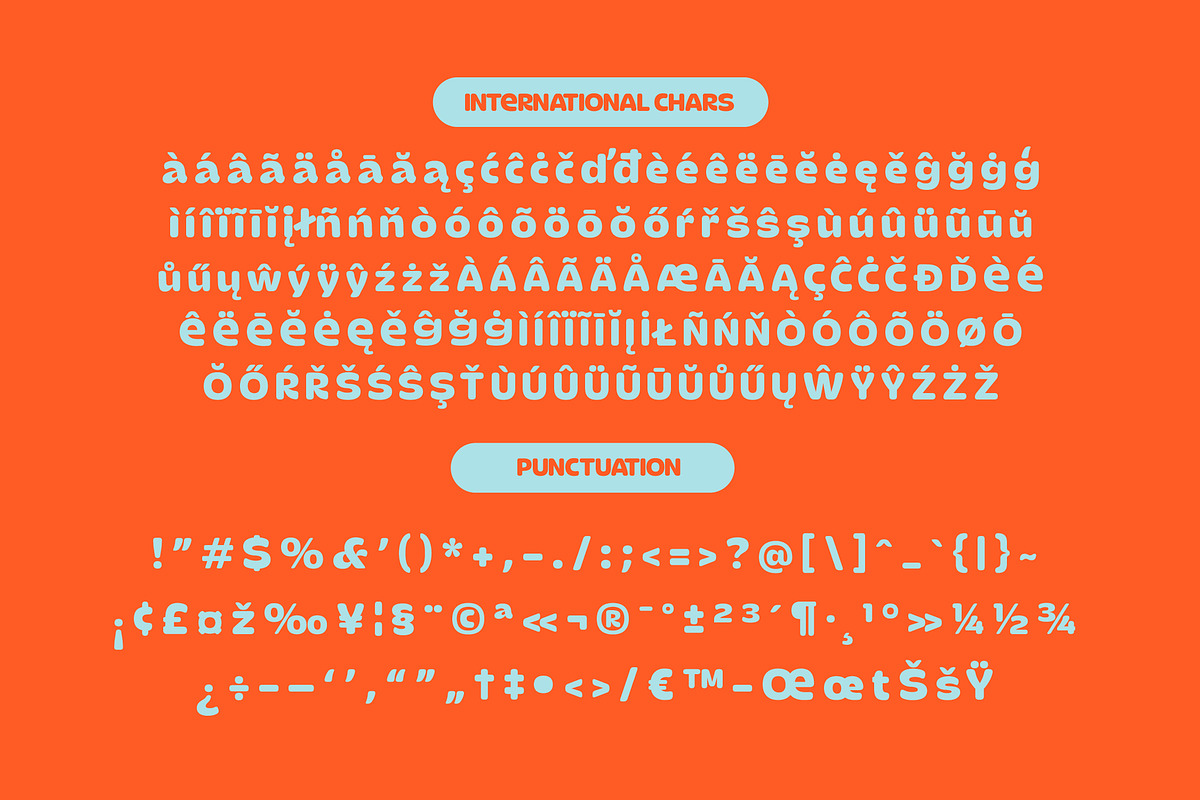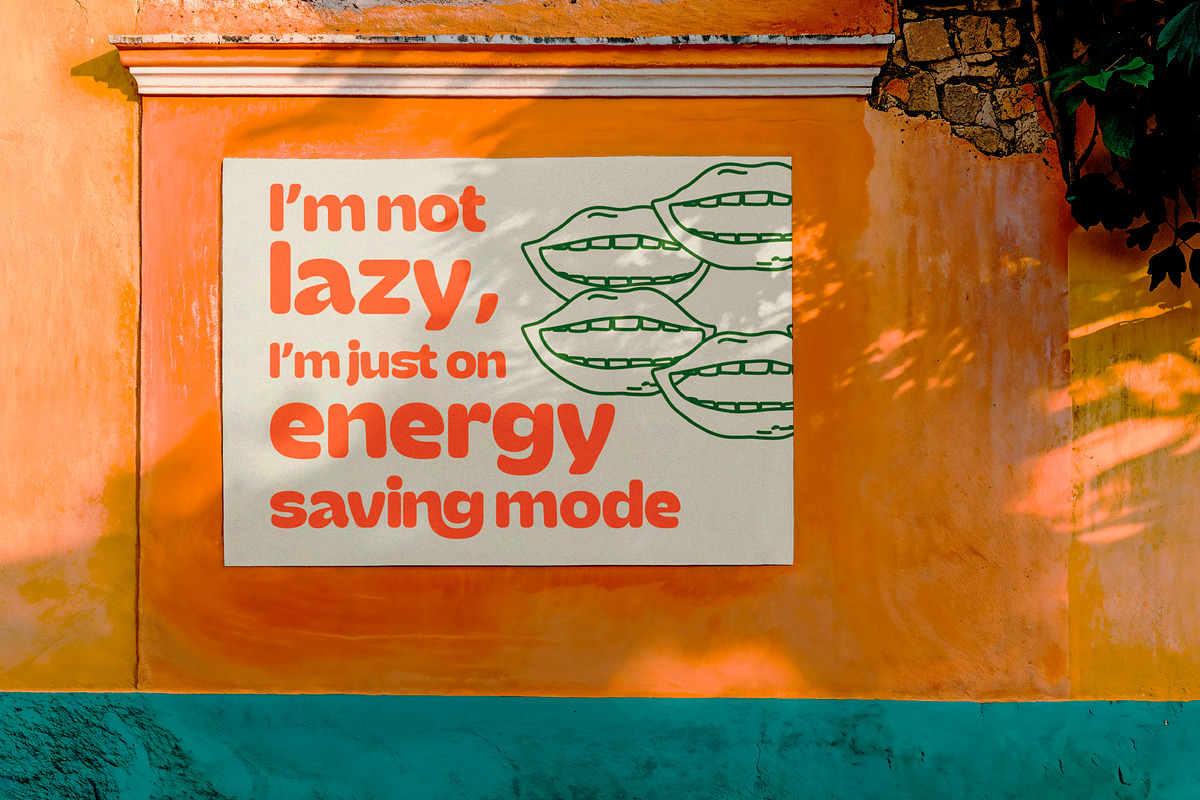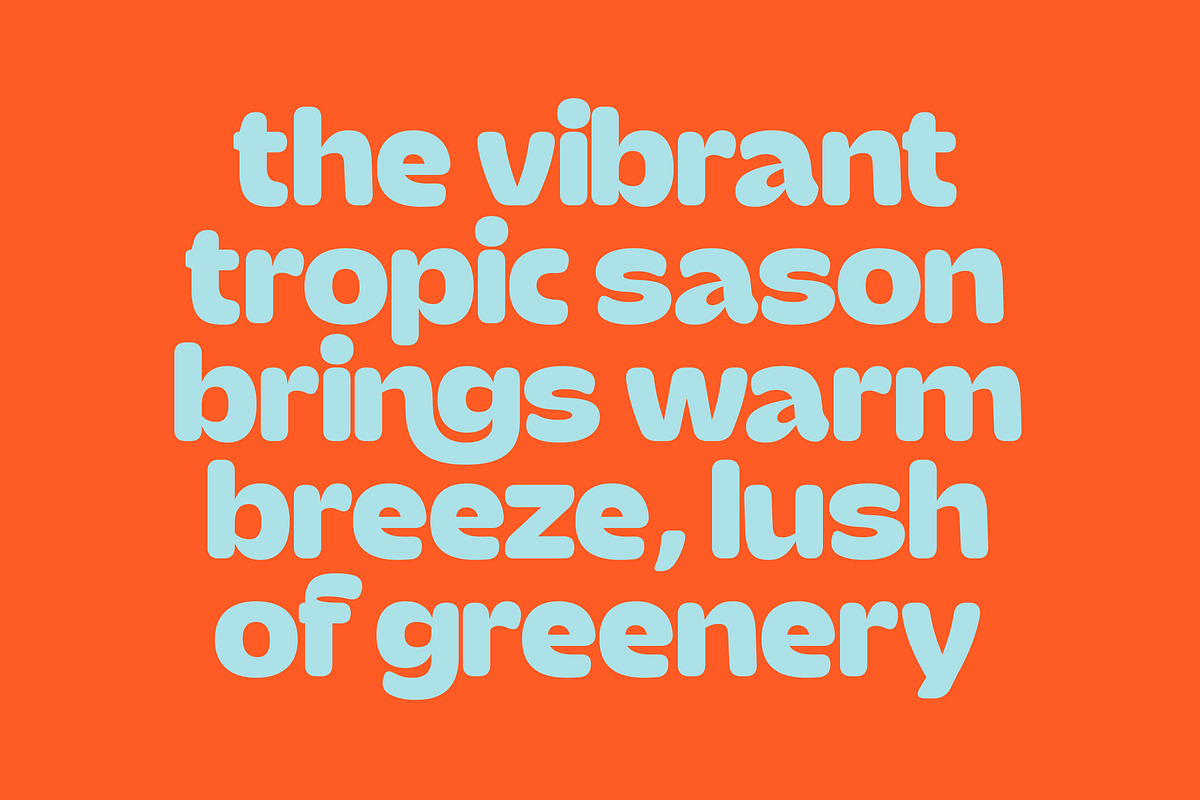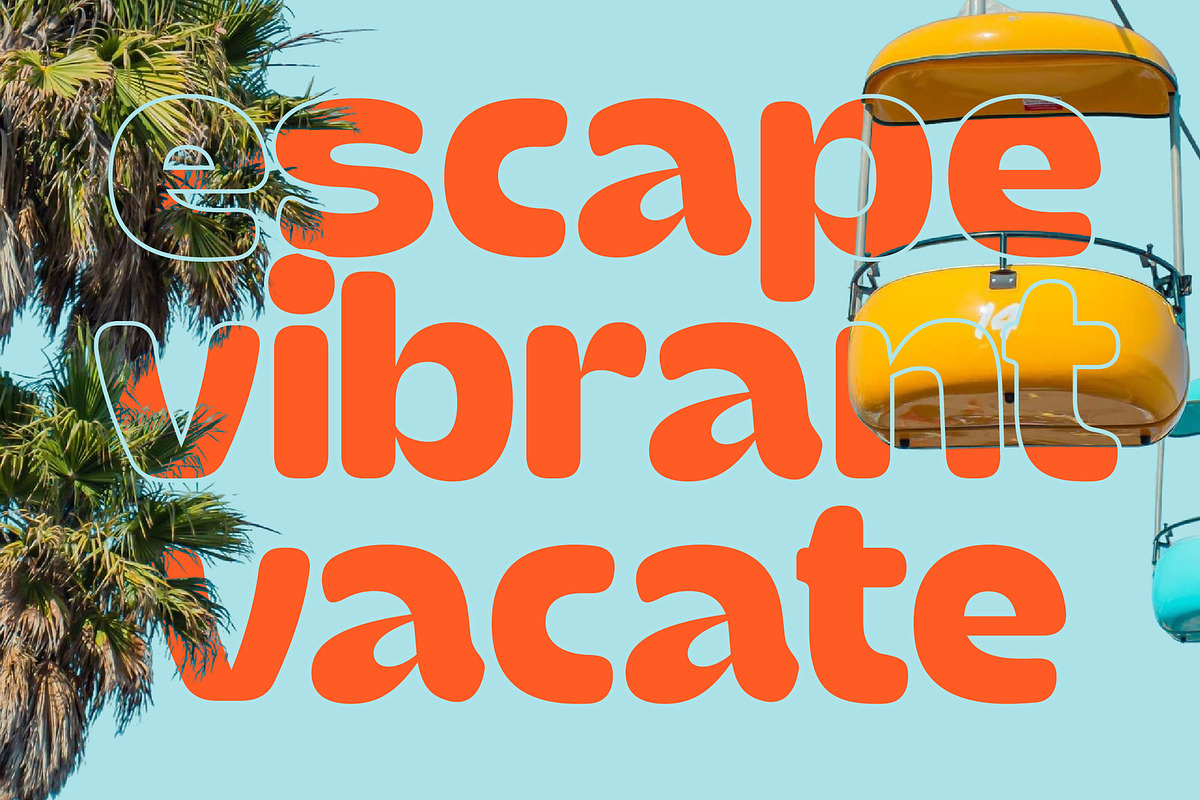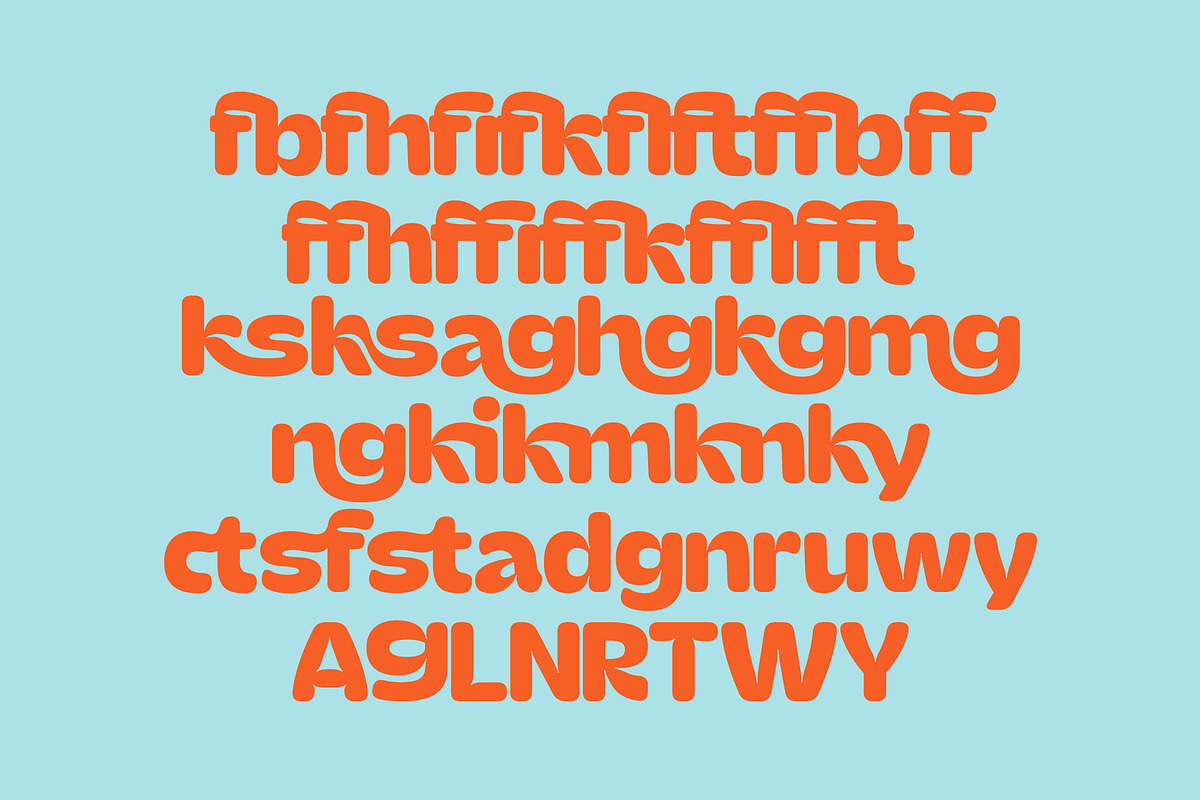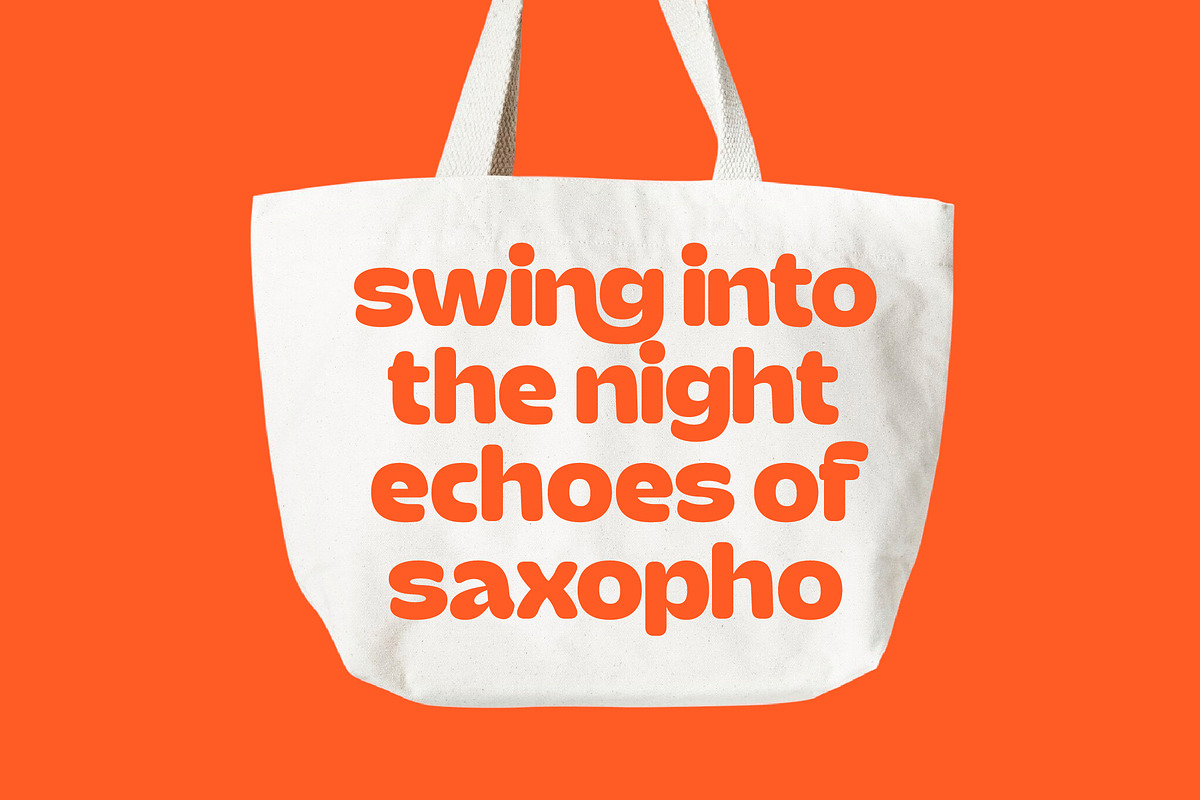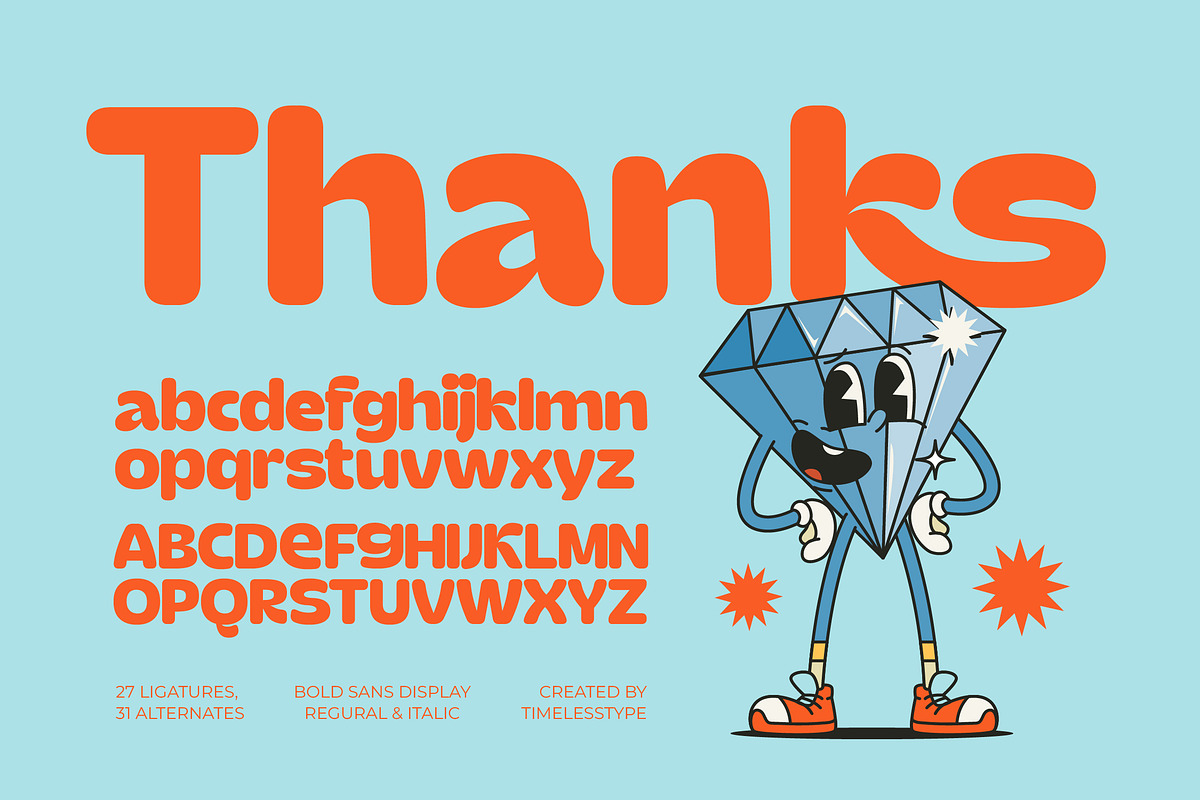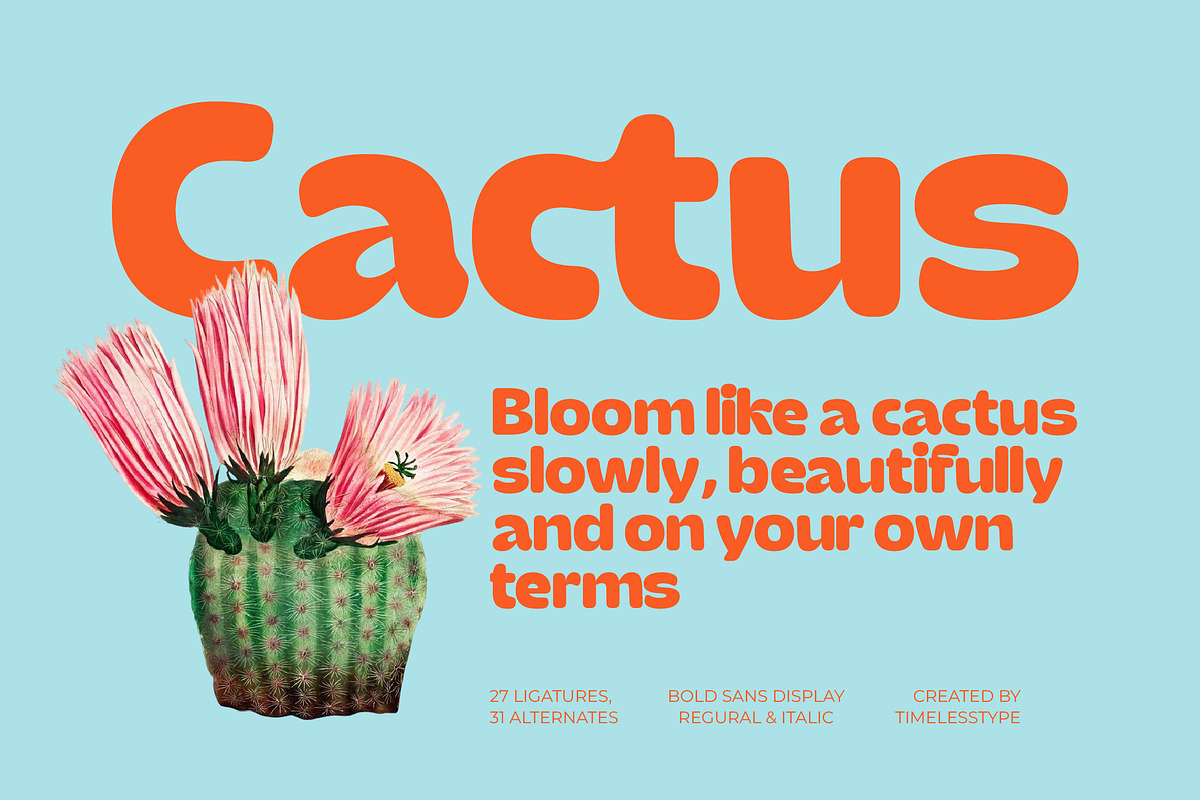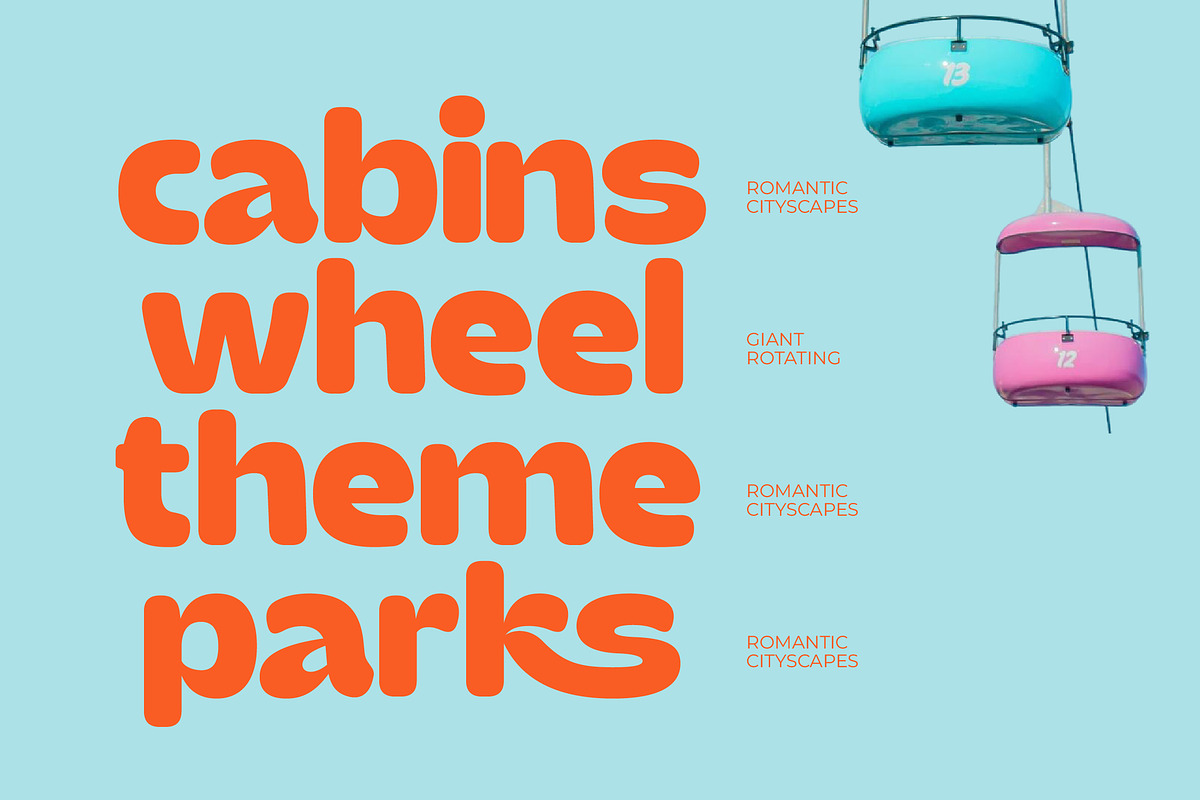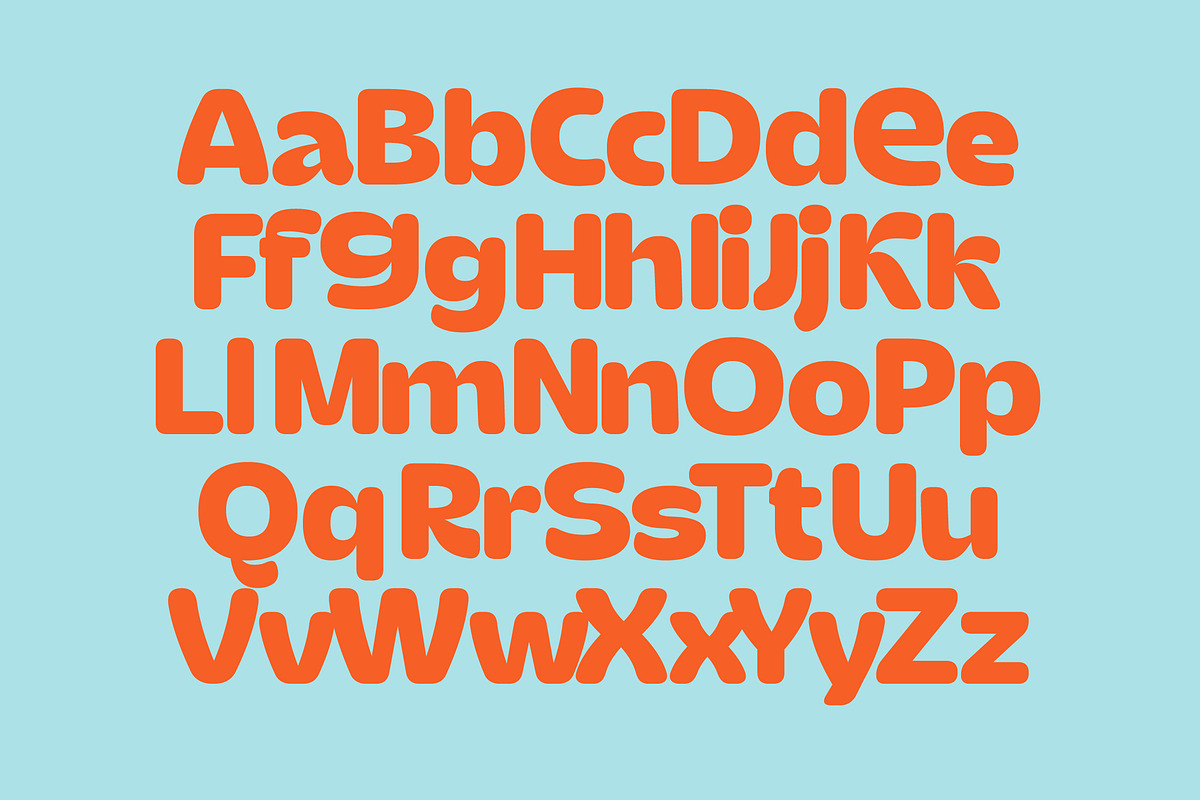
Gemst Retro Bold Display Sans
The Gemst typeface is a vibrant and chunky display font that captures the essence of retro playfulness with a modern twist. It is designed to make your headlines pop and your brand identity stand out with unmistakable energy and thick, pillowy curves.
Inspired by the groovy aesthetics of the 1970s and the bold character designs of vintage cartoons, this typeface brings a nostalgic yet fresh vibe to any project. Its expressive letterforms reflect an era of design where personality and warmth were prioritized in every stroke.
The personality of Gemst is defined by its approachable warmth and modern serif display impact, blending traditional structure with funky curves. It offers a luxury typography feel for high-end projects, serving as a high-contrast serif alternative that provides an editorial font quality and massive branding impact.
This typeface perfectly captures the current modern serif trend where bold, expressive forms are making a huge comeback in digital spaces. It stands out among editorial display fonts for its unique rhythm and character-driven typography, making it a must-have for contemporary creators.
Whether you are crafting a unique logo design or developing a full branding suite, this font delivers versatility across all mediums. It is an excellent choice for editorial layouts, product packaging, and even chic wedding invitations or high-end fashion lookbooks.
The package comes loaded with professional features including ligatures and alternates to help you customize every word to perfection. It also features decorative swashes and comprehensive multilingual support with international characters for full global compatibility.